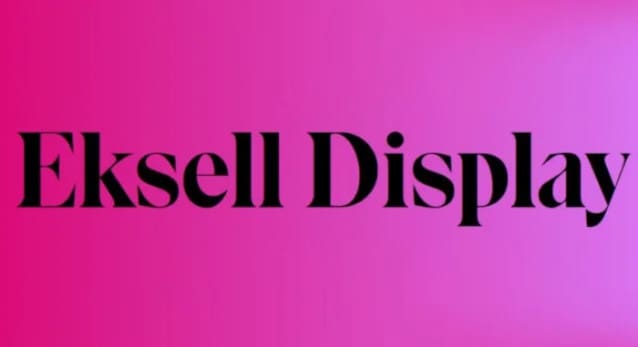
Eksell Display Font
Eksell Display Font, is a graceful and reliable serif, useful in any situation. It’s a unique typeface from 1962, designed by the legendary swedish designer Olle Eksell (1918–2007).
Olle was a prolific artist who couldn’t resist sketching out whatever ideas came to mind. His work covered a broad range, this being one of merely two complete typefaces.
The letters were drawn in Olle’s five square meter studio in Stockholm, six years after he designed the classic Mazetti eyes. We carefully digitized the letters and developed a family of four optical styles, including a stencil version. Have fun with it, we think Olle did.